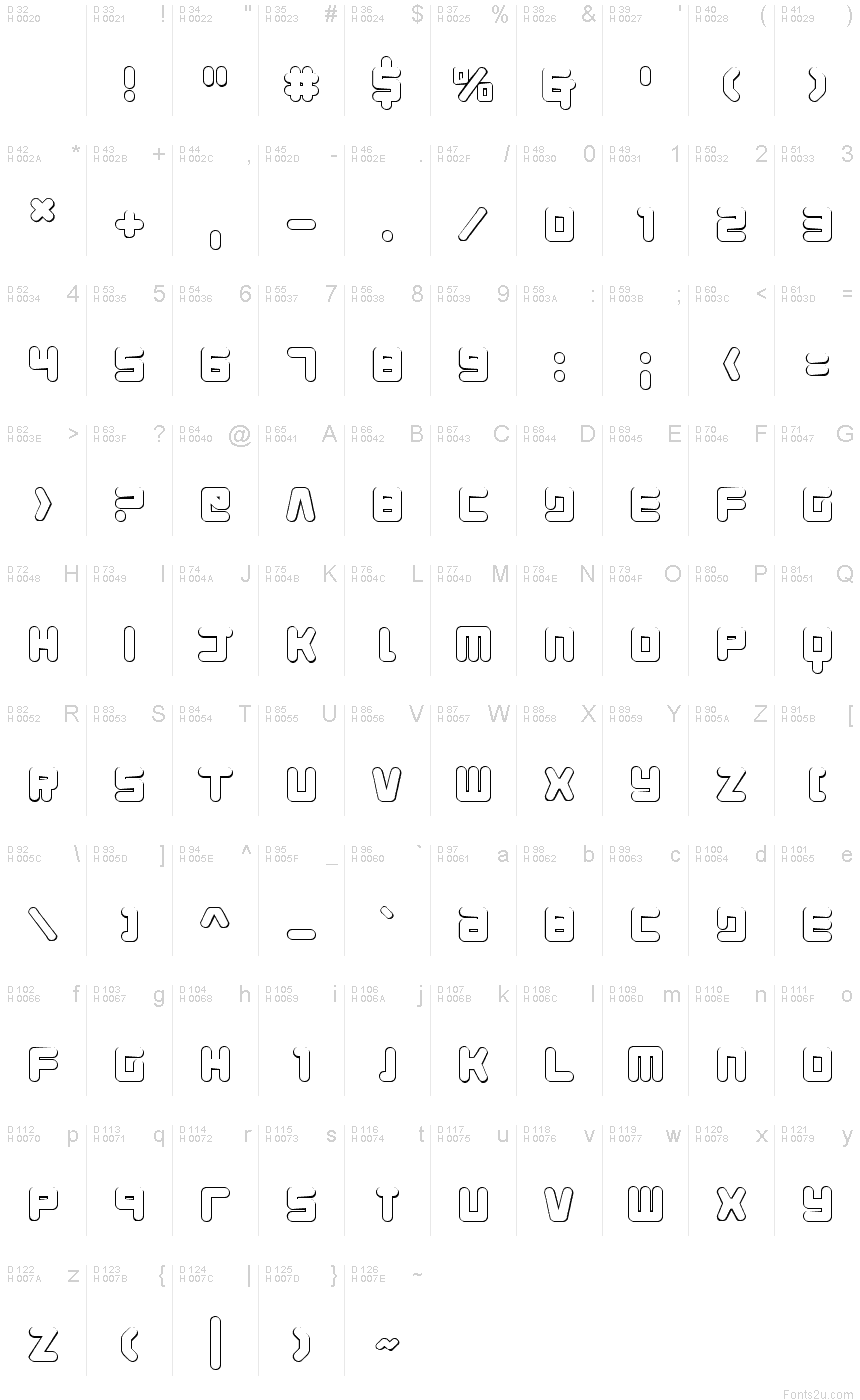
Young Techs 3D by Daniel Zadorozny of Iconian Fonts is a free futuristic outline display font built from broad rounded strokes and squared-off inner spaces. Its letters have a modular arcade-machine shape with smooth corners and an open tubular construction.
Its science-fiction styling makes a convincing fit for game branding, technology packaging, and event posters centered on robotics or digital culture. In magazines, it can turn a feature title into interface-like lettering.